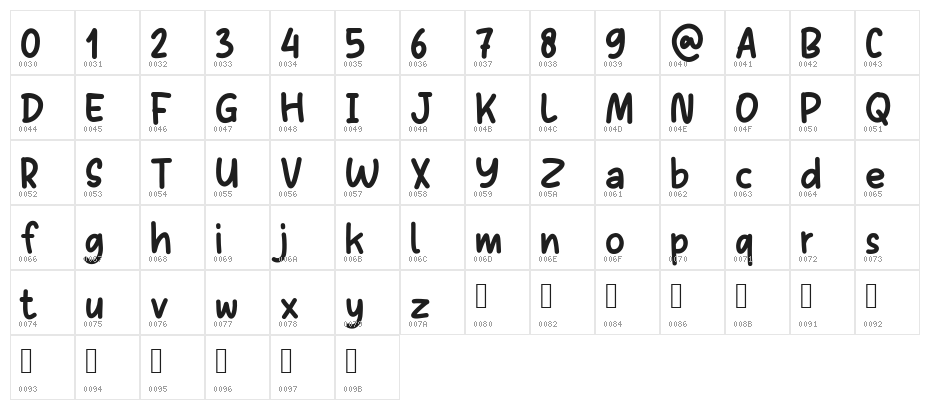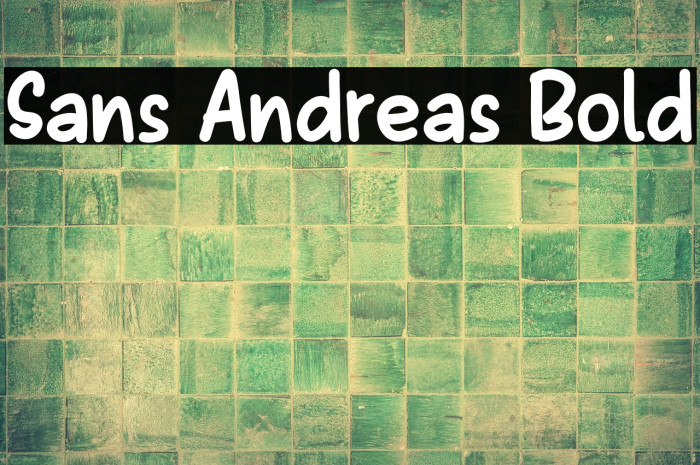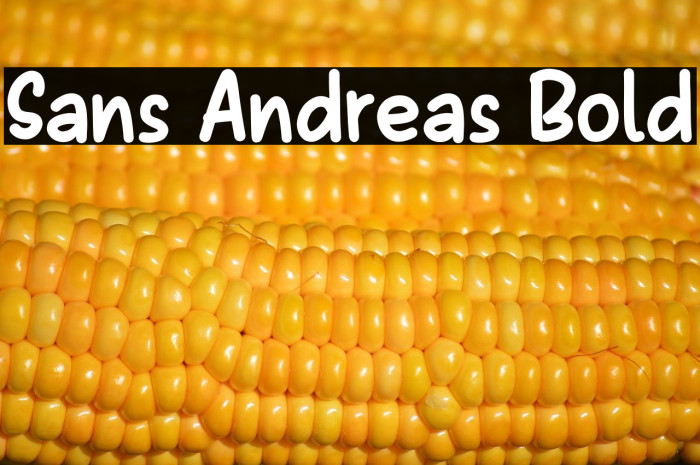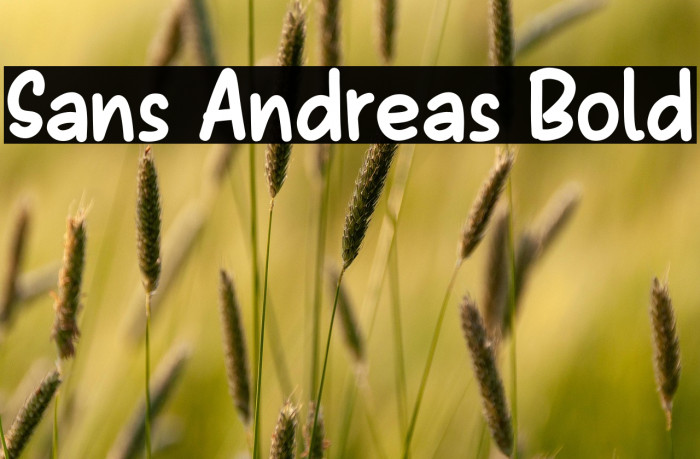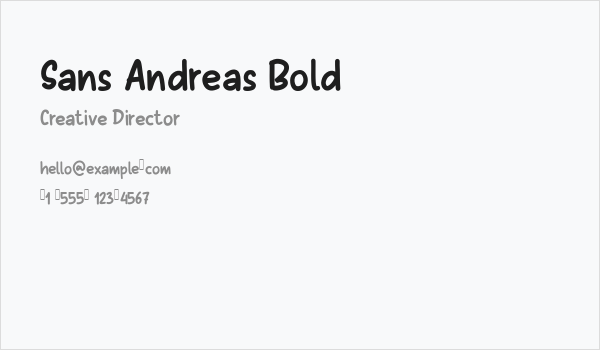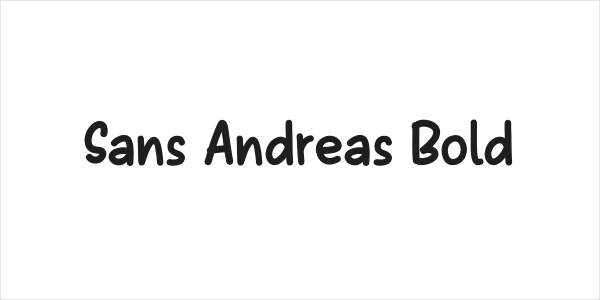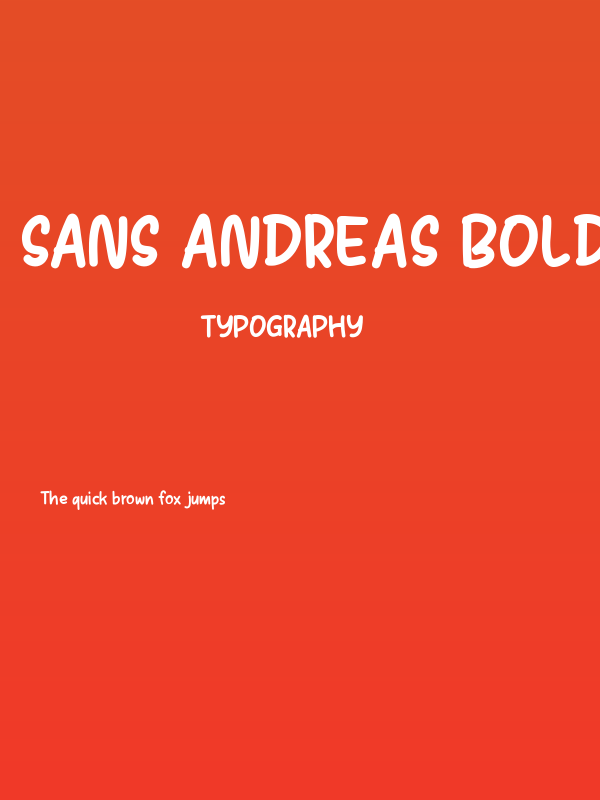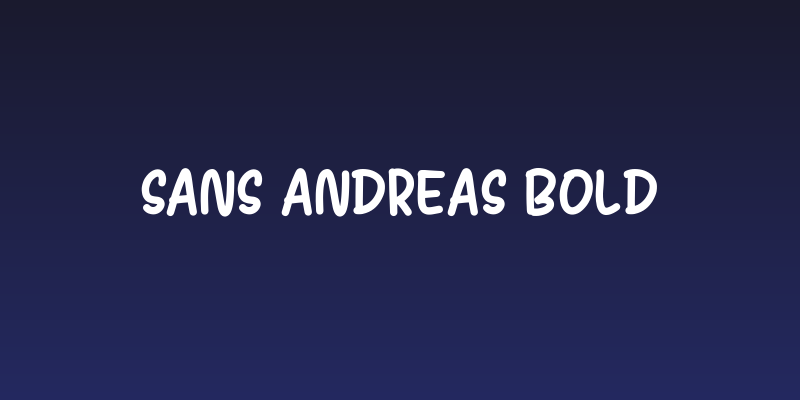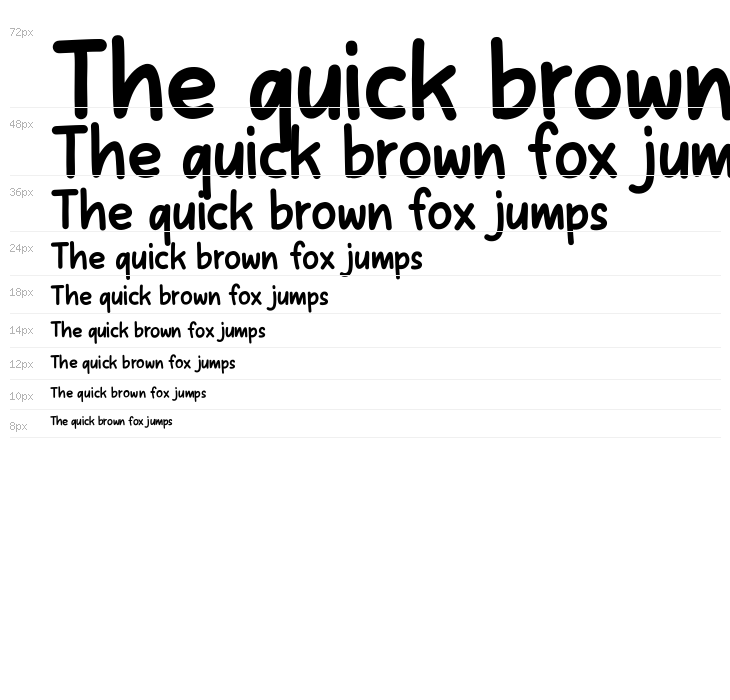
Sans Andreas Bold Font
Sans Andreas Bold Description
This font features a playful and bold style with rounded edges and a hand-drawn appearance. The characters are thick and uniform, giving a sense of friendliness and approachability. The uppercase and lowercase letters maintain a consistent width, contributing to a cohesive look. The numerals are equally bold, ensuring readability. The overall design is casual yet impactful, making it suitable for various creative applications. The font's rounded and smooth curves add a touch of whimsy, while its boldness ensures it stands out in any setting.
| Proposed Projects | Ideal for children's books, playful branding, casual invitations, and creative posters. |